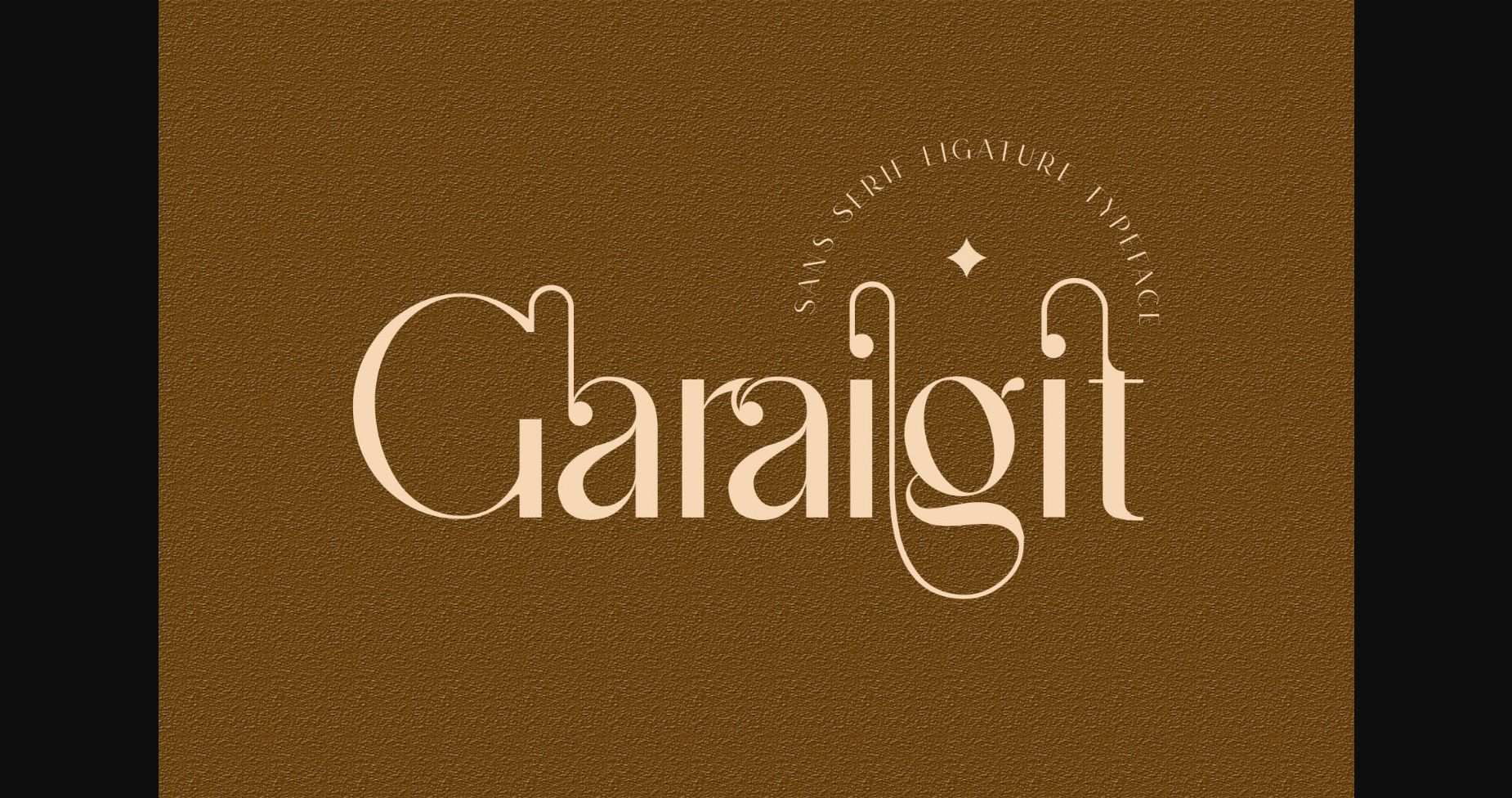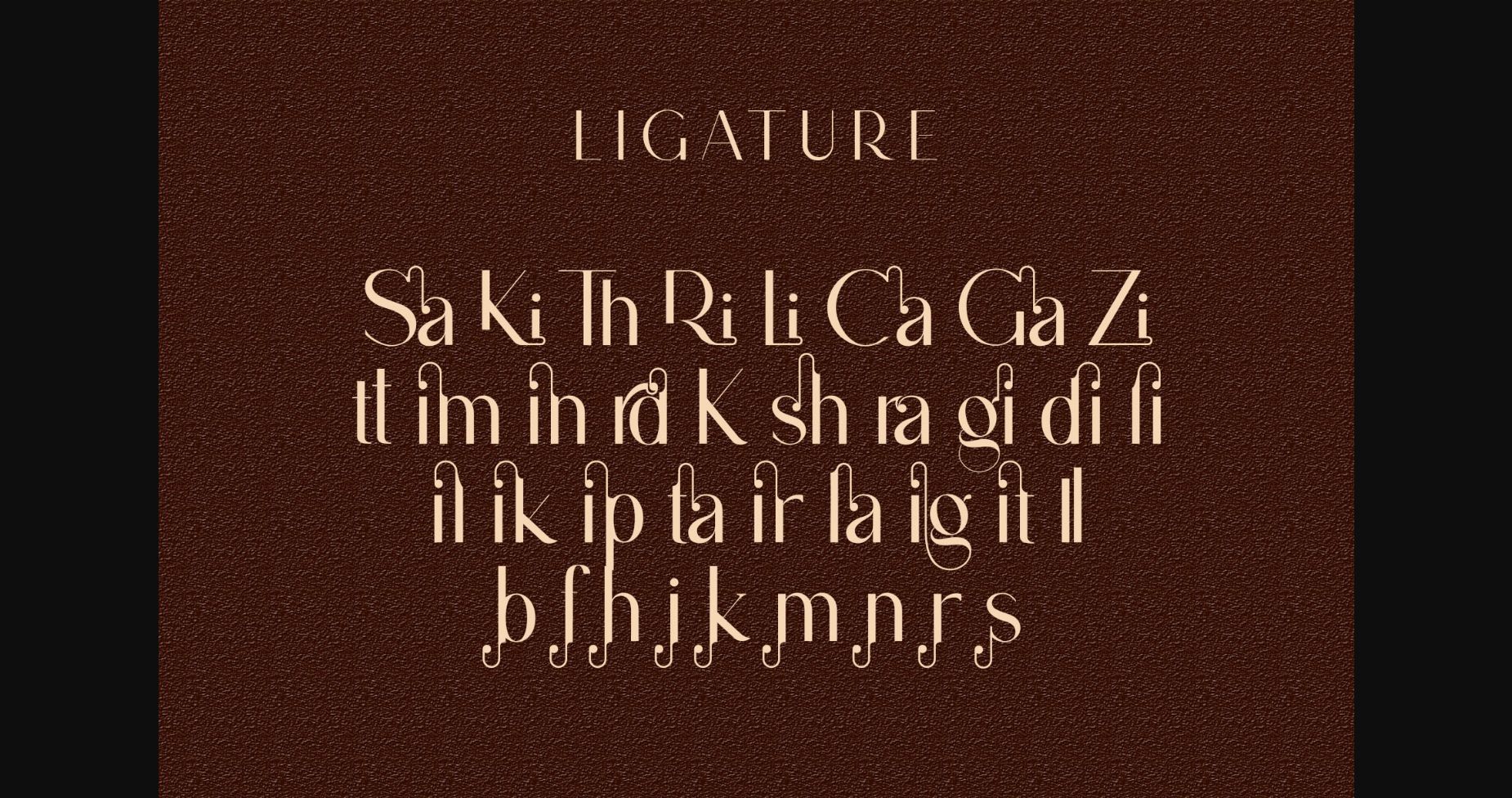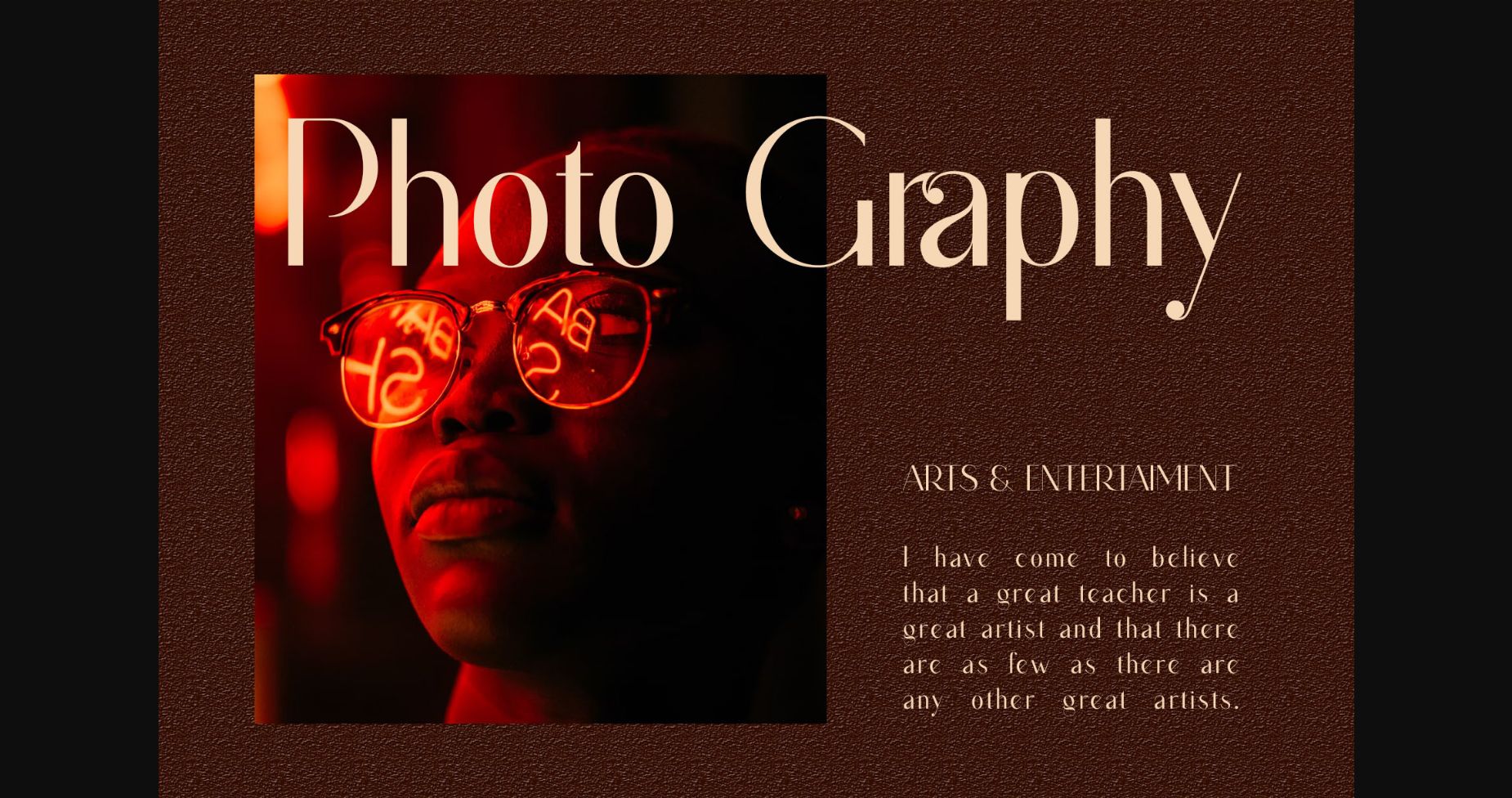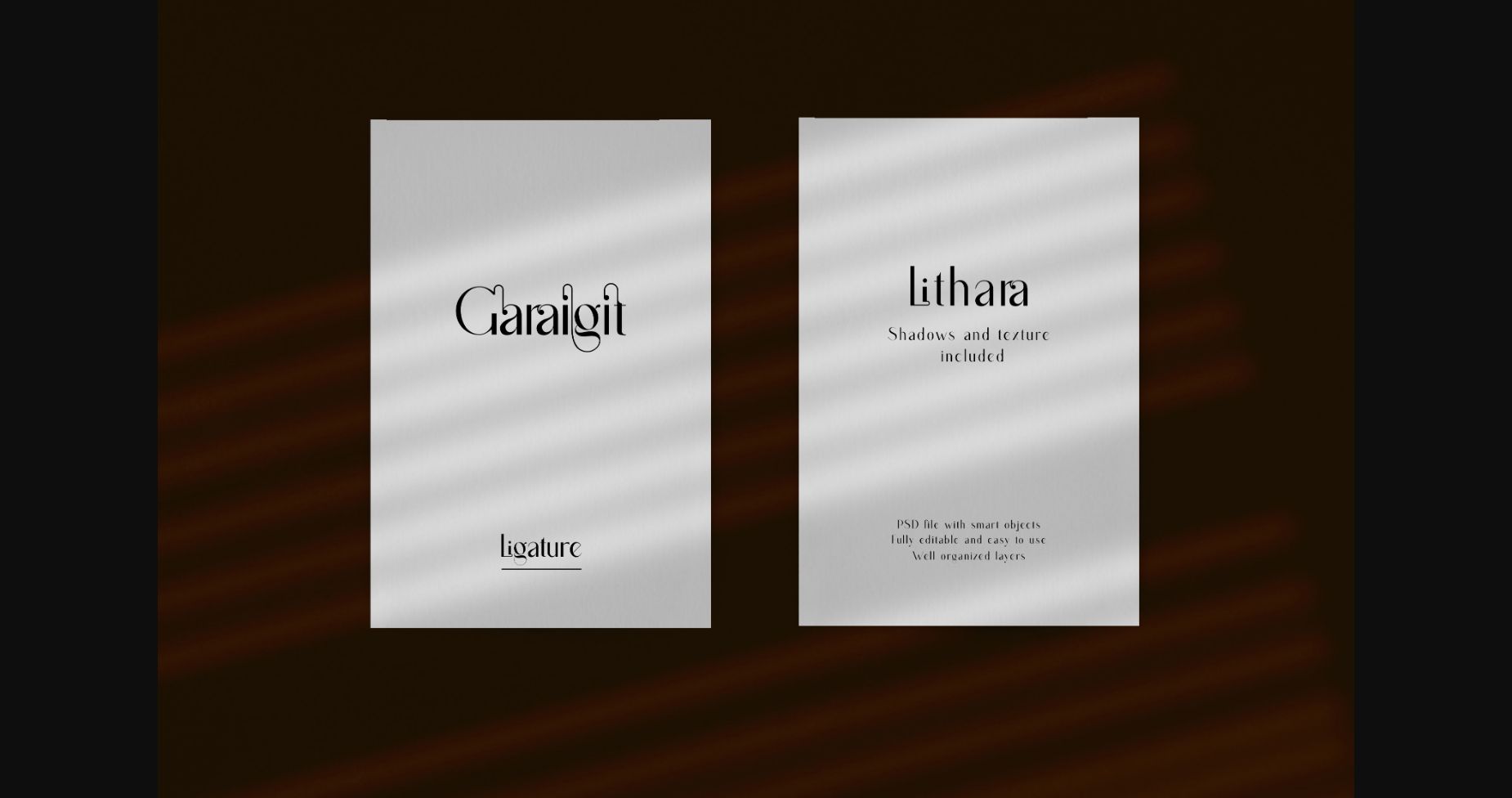
About Garaigit Font
Garaigit is an elegant and distinct sans serif font. It is PUA encoded which means you can access all glyphs and swashes with ease! Add it confidently to your favorite creations and let yourself be amazed by the outcome generated.